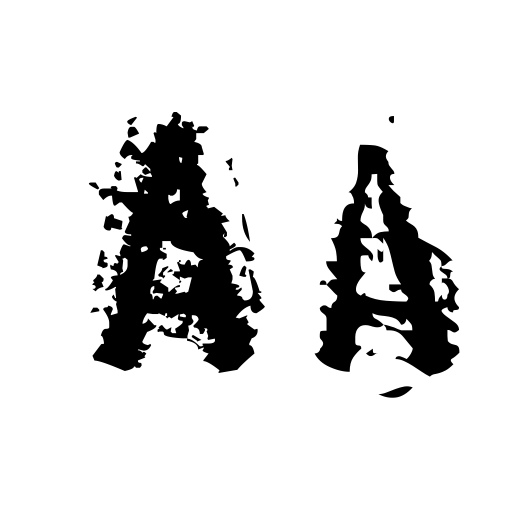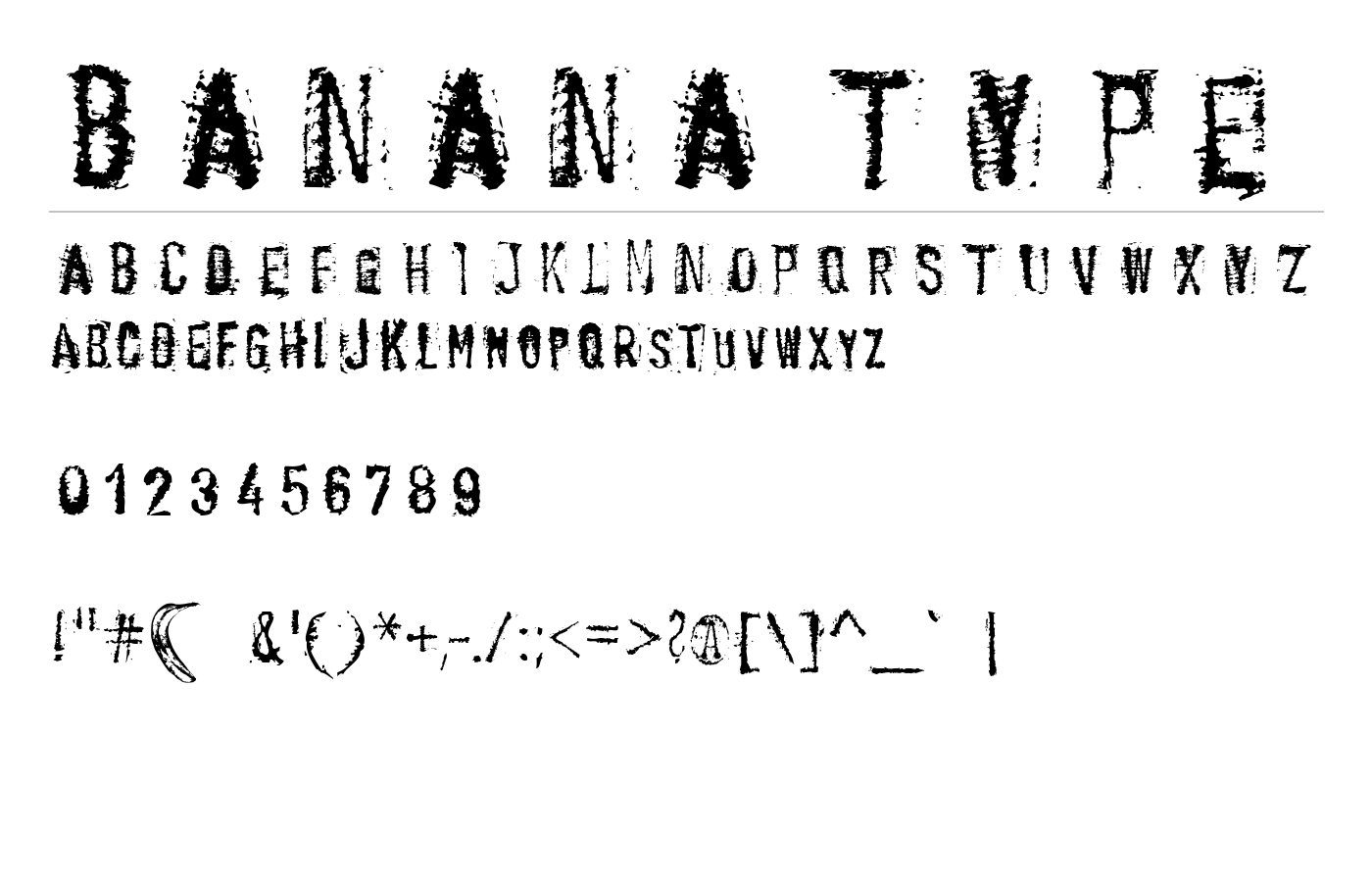
BANANA TYPE is a distressed, all-caps sans serif font that exudes a raw, grungy character with its rough, textured edges and uneven stroke weight. Its tall, narrow letterforms and worn appearance make it ideal for bold, edgy designs that demand a vintage or urban vibe, perfect for posters, album covers, or branding that aims to stand out with a gritty, hand-crafted feel. This font’s unique rugged personality adds an authentic touch to creative projects seeking a rebellious or underground aesthetic.
BANANA TYPE Font